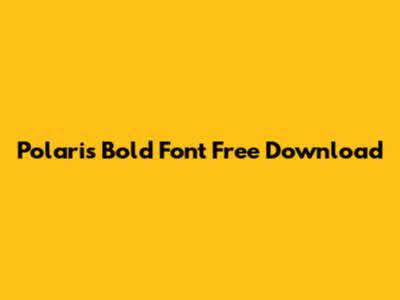
Polaris Bold Font: Free Download Guide
Are you looking to download Polaris Bold font for free? Well, you've come to the right place! In this article, we'll dive deep into everything you need to know about this fantastic font, where to find it, and how to use it in your projects. Whether you're a seasoned designer or just starting out, Polaris Bold can add a unique touch to your creations. So, let's get started and explore the world of Polaris Bold!
What is Polaris Bold Font?
Polaris Bold is a modern and stylish font that stands out with its clean lines and strong character. It's designed to be versatile, making it suitable for a wide range of applications, from branding and logos to headlines and body text. The boldness of the font gives it a powerful presence, ensuring that your message gets noticed. Polaris Bold is more than just a font; it’s a tool to make your designs pop and leave a lasting impression.
The unique characteristics of Polaris Bold make it a favorite among designers. Its readability is excellent, even at smaller sizes, which is crucial for body text. At the same time, its distinctive appearance makes it perfect for headlines and titles, where you want to grab the reader's attention immediately. The font's versatility extends to various design styles, whether you're working on a sleek, modern project or something with a more classic feel. Polaris Bold adapts effortlessly, enhancing the overall aesthetic.
Moreover, Polaris Bold often comes with a complete set of characters, including uppercase and lowercase letters, numbers, punctuation marks, and special symbols. This comprehensive character set allows you to express your ideas fully without being limited by missing glyphs. The font may also include different weights and styles, such as italic or condensed versions, providing even more flexibility in your design work. With all these features, Polaris Bold empowers you to create visually stunning and effective designs that stand out from the crowd.
Why Use Polaris Bold Font?
There are several reasons why you might want to use Polaris Bold in your design projects. First and foremost, its readability is exceptional. The clear and distinct letterforms make it easy to read, even in smaller sizes. This is crucial for ensuring that your message is effectively communicated to your audience. Whether you're designing a website, creating a brochure, or putting together a presentation, readability should always be a top priority.
Secondly, Polaris Bold has a strong visual impact. The bold weight of the font commands attention and adds a sense of importance to your text. This can be particularly useful for headlines, titles, and call-to-action buttons, where you want to make a statement. The font's confident appearance can help you create designs that are both eye-catching and professional. In a world where visuals play a significant role, using a font like Polaris Bold can give you a competitive edge.
Another advantage of Polaris Bold is its versatility. It can be used in a variety of design contexts, from corporate branding to creative projects. Its clean and modern aesthetic makes it suitable for a wide range of industries, including technology, finance, and fashion. Whether you're designing a logo for a tech startup or creating marketing materials for a luxury brand, Polaris Bold can help you achieve the desired look and feel. Its adaptability ensures that it remains a valuable asset in your font library.
Finally, using Polaris Bold can help you create a consistent brand identity. By incorporating the font into your logo, website, and marketing materials, you can establish a cohesive visual style that reinforces your brand's message. Consistency is key to building brand recognition and trust, and choosing the right font is an essential part of this process. Polaris Bold's unique characteristics can help you create a memorable and distinctive brand identity that sets you apart from your competitors.
By following these tips, you can use Polaris Bold font to create designs that are both visually stunning and effective. Remember, the key is to use the font strategically and in a way that complements your overall design.